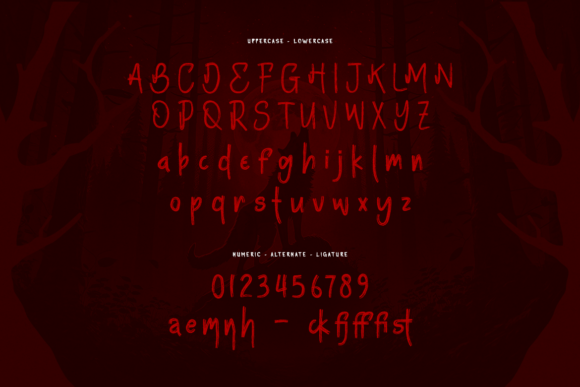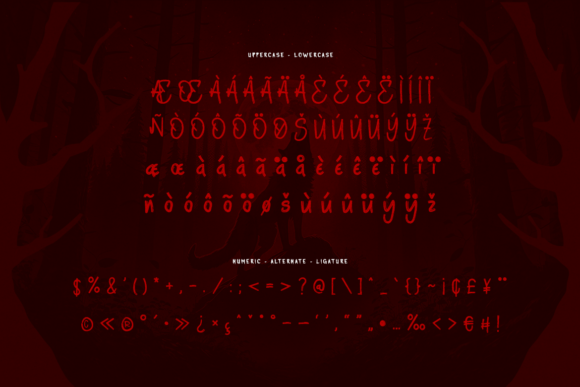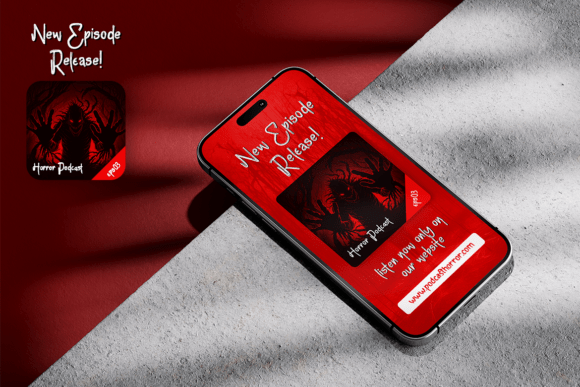
Introduction to Nightnes Font
Have you ever stared at a blank canvas, trying to conjure up the perfect design to capture the essence of a horror story? The dim lighting, the eerie atmosphere, and the suspenseful music all blend together to create an immersive experience that draws the viewer in. But, have you ever struggled to find the right font to complement your creative vision? That’s where Nightnes Font comes in – a hand-drawn horror typeface that’s sure to send shivers down your spine.
With its rough strokes, irregular shapes, and expressive details, Nightnes Font is the perfect design resource for any creative project that requires a dramatic and atmospheric look. Whether you’re designing a movie poster, a horror title, or a book cover, this typeface is sure to add an element of mystery and tension to your work.
Key Features of Nightnes Font
- Unique and creative design perfect for various projects, including graphic design, digital art, and more.
- Unique characteristics include a modern aesthetic and a bold, eye-catching feel, making it ideal for creative projects.
Honest Review: Nightnes Font
As a designer, I’m always on the lookout for unique and high-quality design resources to elevate my creative projects. Recently, I stumbled upon the Nightnes Font, and I must say it’s been a game-changer for me.
What works well: ✨ The Nightnes Font offers a wide range of styles and weights, making it perfect for any design project. The font is also completely free to download, which is a huge plus for designers on a budget. The transparent background feature allows for seamless integration with other design elements, making it a great design resource.
- Unique and stylish designs
- High-quality font with a wide range of styles and weights
However, I do have a few limitations to mention: ⚠️ The font can be a bit overwhelming for simple designs, and the lack of a bold font style can make it difficult to use for headings.
Overall, I’m really impressed with the Nightnes Font. It’s a high-quality design resource that’s perfect for creative projects. With its unique designs and wide range of styles, it’s a must-have for any designer looking to take their work to the next level.
Using Nightnes Font in Creative Projects
For the best results, use the Nightnes Font on a transparent background. This will allow the font to stand out and add a professional touch to your designs. Experiment with different font sizes and colors to get the most out of the Nightnes Font.
The Nightnes Font is perfect for a variety of design projects, including:
- Logos and branding materials
- Typography-based designs
- Presentations and documents
- Brochures and flyers